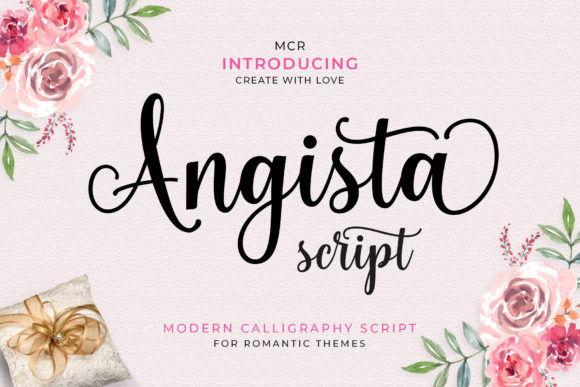
Introducing Angista Script Font: Elevate Your Designs with Elegance
Are you looking for a font that can add a touch of luxury to your design projects? Look no further than Angista Script Font. This beautiful and delicate script font is designed to make your designs stand out with its unique and elegant style. In this article, we’ll explore the features and benefits of Angista Script Font and how it can take your designs to the next level.
What is Angista Script Font?
Angista Script Font is a stunning script font that features characters that dance along the baseline, creating a beautiful and flowing effect. This font is perfect for designers who want to add a touch of elegance and sophistication to their designs. Whether you’re working on a branding project, a wedding invitation, or a packaging design, Angista Script Font is sure to impress.
Key Features of Angista Script Font
- Beautiful and delicate script font: Angista Script Font is designed to be elegant and refined, making it perfect for high-end designs.
- Characters that dance along the baseline: The unique design of Angista Script Font creates a beautiful flowing effect that will add a touch of luxury to your designs.
Benefits of Using Angista Script Font
So, why should you choose Angista Script Font for your design projects? Here are just a few benefits of using this beautiful font:
- Adds a touch of luxury: Angista Script Font is designed to add a touch of elegance and sophistication to your designs, making it perfect for high-end projects.
- Versatile: This font can be used in a variety of design projects, from branding and packaging to wedding invitations and more.
- Easy to read: Despite its elegant design, Angista Script Font is easy to read, making it perfect for use in body text or headlines.
How to Use Angista Script Font
Using Angista Script Font in your designs is easy. Here are a few tips to get you started:
- Pair it with a sans-serif font: For a classic look, pair Angista Script Font with a sans-serif font, such as Arial or Helvetica.
- Use it for headlines and titles: Angista Script Font is perfect for use in headlines and titles, where its elegant design can really shine.
- Experiment with different colors: Try using Angista Script Font in different colors to add some extra flair to your designs.